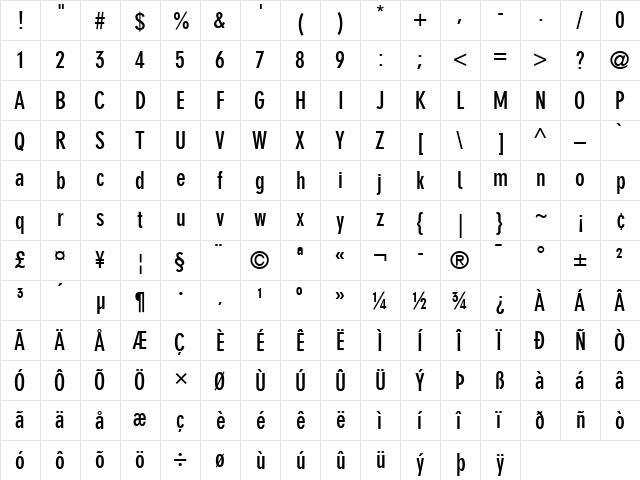
DINNeuzeitGrotesk LT BoldCond Regular Font Preview
Design Context for DINNeuzeitGrotesk LT BoldCond Typeface
DINNeuzeitGrotesk LT BoldCond takes a clean, functional approach — its unadorned letterforms prioritise legibility and work reliably across screen and print environments. Its bold stroke weight gives it real presence on the page. The condensed width makes it efficient for tight spaces without sacrificing legibility.
A strong choice for UI design, app interfaces, bold signage, and corporate brand systems.
Font Pairing: Use DINNeuzeitGrotesk LT BoldCond for headlines alongside a lighter-weight sans or serif for body copy to establish clear visual hierarchy.
Pro Tip: Try DINNeuzeitGrotesk LT BoldCond in all-caps with moderate tracking for navigation and label copy — it performs well in systematic UI contexts.